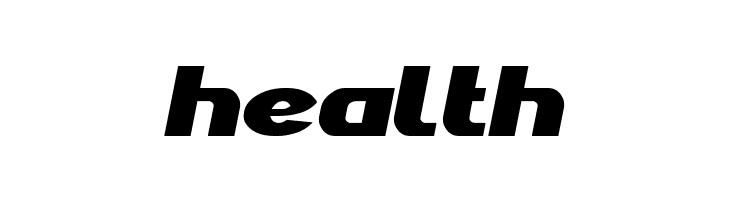
A refined, thin serif font with an elegant italic style.
A classic serif font with extra bold weight and italic style, perfect for impactful headlines.
An elegant, extra light serif font with an italic style.
A bold, italic serif font with a classic and authoritative style.
A thin, elegant serif font with refined strokes and a modern aesthetic.
A bold serif font with classic elegance and strong readability.
A bold, italic serif font with a classic and elegant style.
A bold, high-contrast serif font with a strong, authoritative presence.
An elegant serif font with a classic italic style, perfect for sophisticated designs.
A refined serif font with thin, elegant strokes and subtle serifs.
A light, italic serif font with elegant curves and refined serifs.
A classic serif font with semi-bold weight and italic style, offering elegance and readability.
A classic serif font with medium weight and balanced readability.
A clean, modern sans-serif font with consistent stroke width and excellent readability.
A bold, modern sans-serif font with strong lines and excellent readability.
A bold, oblique font with a modern and dynamic style.
A sleek, modern italic font with clean lines and smooth curves.
A clean, modern, and condensed typeface with uniform stroke width and excellent readability.
A modern, condensed, bold italic font with a sleek and professional appearance.
A modern, condensed sans-serif font with a light and clean design.
A sleek, modern, condensed, light italic font with a clean and elegant style.
A modern, bold, and condensed sans-serif font with excellent legibility.
A clean, modern monospaced font perfect for coding and technical use.
A modern, condensed, extra light italic typeface with a sleek and elegant design.
A modern, semi-condensed sans-serif font with a semi-bold weight.
A clean, modern sans-serif font with a light weight and geometric precision.
A modern, extra bold, semi-condensed sans-serif font with italic styling.
A modern, semi-condensed sans-serif italic typeface with clean lines and balanced proportions.